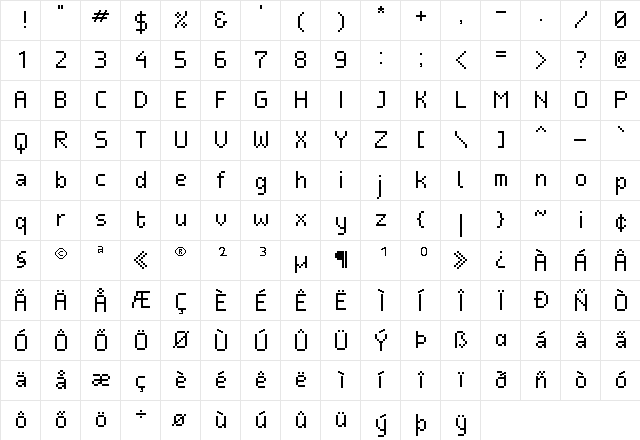
Neue Pixel Sans Regular
| Designer | Vasily Draigo aka Daymarius |
Design Context for Neue Pixel Sans Typeface
Neue Pixel Sans is rooted in pixel-grid construction, making it a natural fit for game UI, retro computing aesthetics, and digital nostalgia projects.
Well-suited to indie game interfaces, retro computing aesthetics, and pixel art-adjacent design work.
Pro Tip: Use Neue Pixel Sans at sizes that align with its pixel grid for the sharpest rendering — scaling to non-integer multiples can introduce unwanted blur.